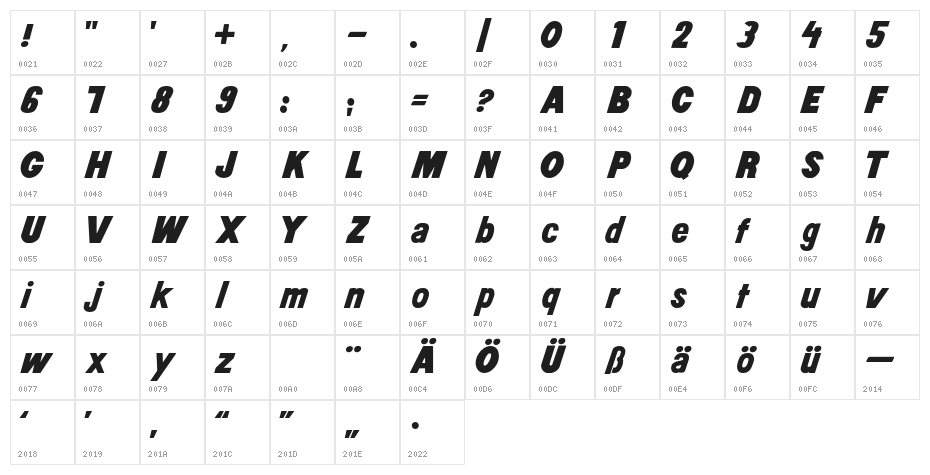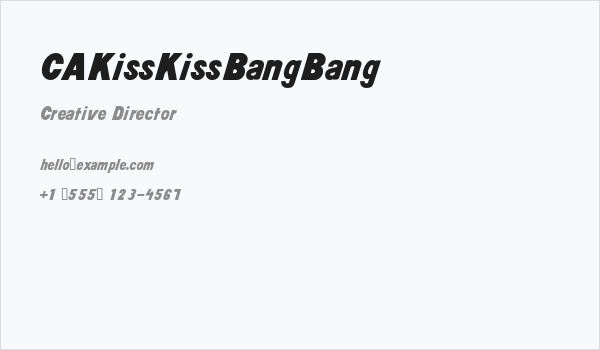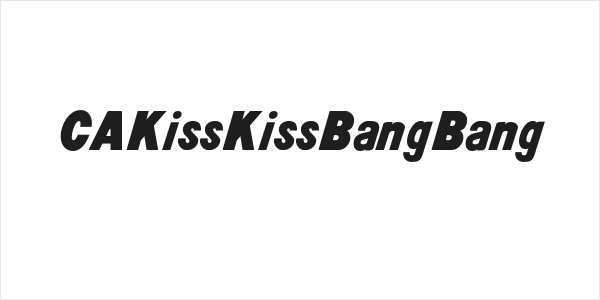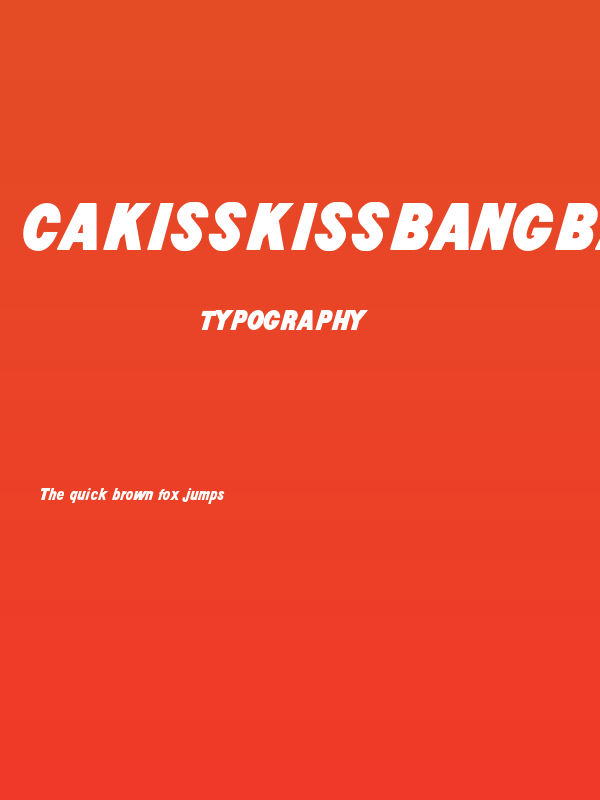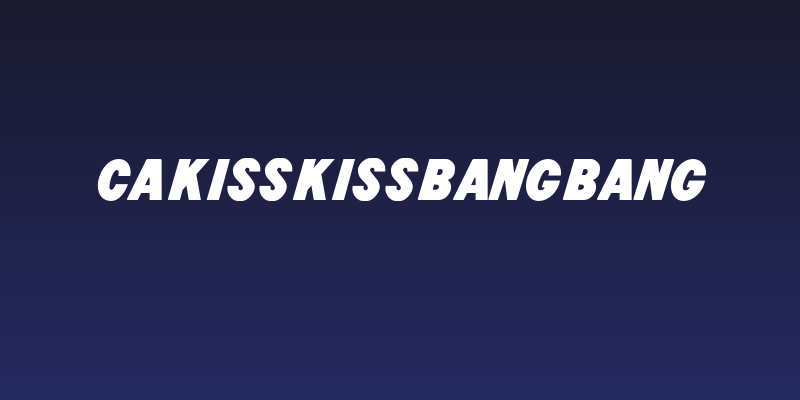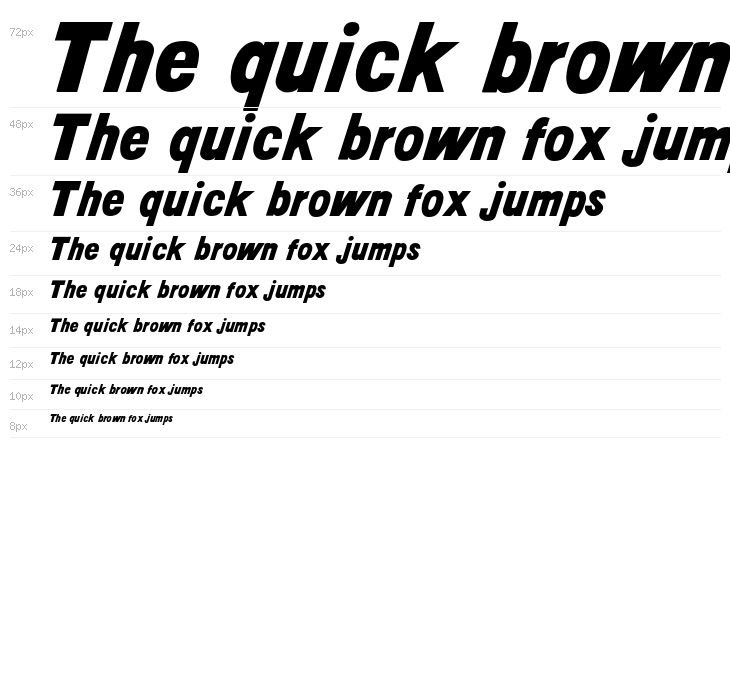
CAKissKissBangBang Font
CAKissKissBangBang Description
This bold, italicized font features a strong, impactful presence with its thick strokes and slightly condensed letterforms. The uppercase and lowercase characters maintain a consistent slant, adding a dynamic and energetic feel. The numbers and special characters follow the same stylistic approach, ensuring uniformity across all elements. The font's design is modern and assertive, making it ideal for attention-grabbing headlines or branding materials that require a bold statement.